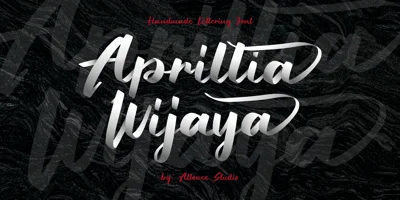
Aprillia Wijaya Font
Aprillia Wijaya Font is perfect for springtime celebration branding, fresh floral design projects, renewal-themed marketing campaigns, seasonal fashion promotions, garden center identities, spring wedding invitations, botanical lifestyle brands, and rejuvenating wellness communications. This refreshing typeface brings spring vitality, floral elegance, and seasonal sophistication to any project celebrating the awakening beauty of spring season and the inspiring energy of natural renewal and blooming life.
What makes Aprillia Wijaya Font exciting is its exceptional ability to embody the essence of spring awakening through letterforms that seem to bloom with fresh vitality and dance with the gentle energy of seasonal renewal. The font features gracefully flourishing character shapes with organic proportions, refreshing spacing that creates visual breathing room, and delicate details that evoke the tender beauty of spring blossoms and the graceful emergence of new growth. Its seasonal character represents the joy of renewal and the inspiring beauty of nature's awakening, making it perfect for brands that want to communicate freshness, growth, and the uplifting spirit of springtime transformation and natural beauty.
The Aprillia Wijaya Font family typically includes light and regular weights with florally inspired uppercase and lowercase letters, seasonal numerals, and comprehensive punctuation marks that maintain the font's spring sophistication and botanical appeal. The design emphasizes natural elegance while providing practical typography options for contemporary seasonal and lifestyle communication applications that require both organic beauty and functional versatility.
Whether you're creating spring brand identities or developing seasonal marketing materials, Aprillia Wijaya Font offers unmatched seasonal authenticity and botanical appeal. This typeface excels in applications where its flourishing character can evoke the joy of spring and natural renewal. Its fresh aesthetic makes it particularly effective for garden centers, wellness brands, and seasonal businesses that want to communicate growth and natural beauty. The font's blooming presence helps establish emotional connections while ensuring memorable recognition through typography that celebrates the eternal promise of Aprillia Wijaya Font spring awakening and seasonal renewal.